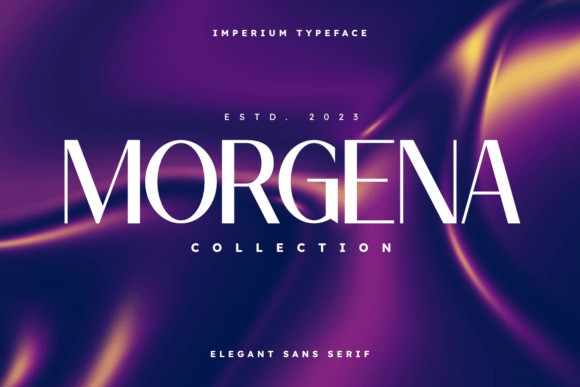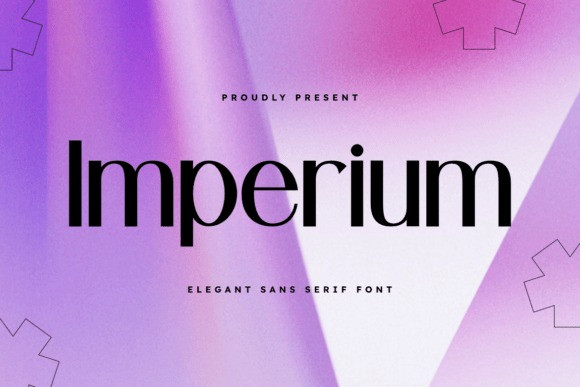
Imperium Font
Imperium Font a typeface designed for those who believe that true luxury lies in simplicity.This Imperium typeface strikes a perfect balance between modern geometric precision and classic high-fashion aesthetics. With its clean lines and elongated proportions, it offers a visual clarity that is both commanding and graceful. Whether you are building a brand from the ground up or looking to elevate an existing project, this Imperium font provides the structural integrity needed for high-impact design.
The versatility of this Imperium typeface is its greatest strength. It is exceptionally well-suited for editorial layouts, where it can act as a bold header for fashion spreads or a sleek sub-headline for architectural journals.
To enhance its natural elegance, pair it with a delicate, light-weight script for a balanced “high-low” visual dynamic, or stack it in varying weights to create a brutalist, modern look. It flourishes in minimalist environments—think clean white space, monochromatic palettes, and high-resolution photography.
From luxury packaging to high-end corporate identities, this font ensures your message is delivered with undeniable authority and style.